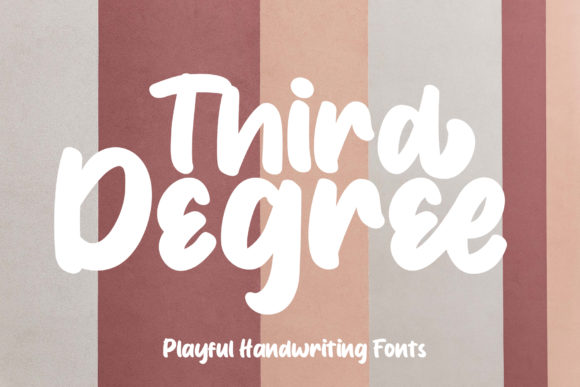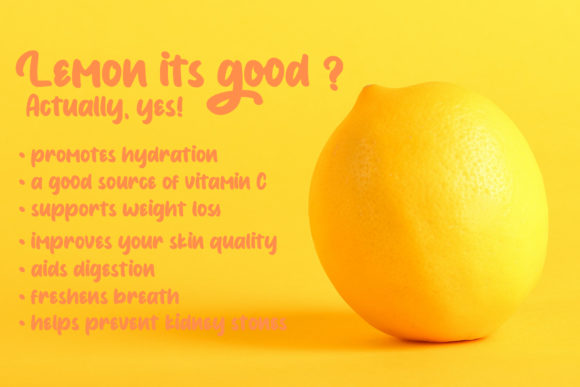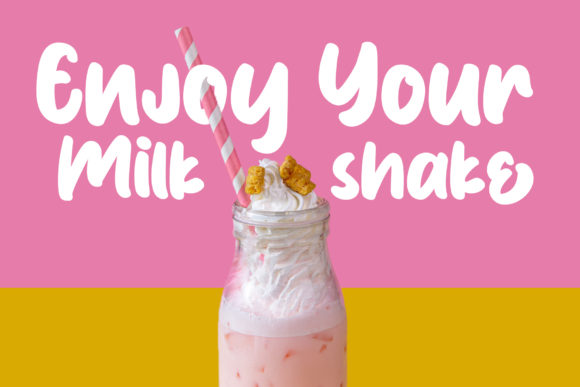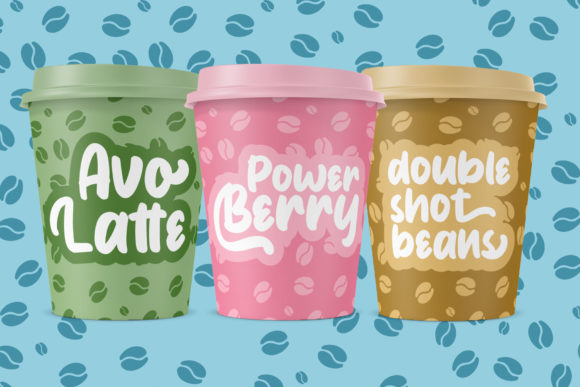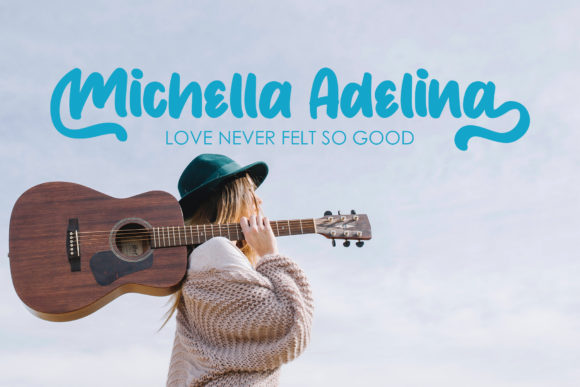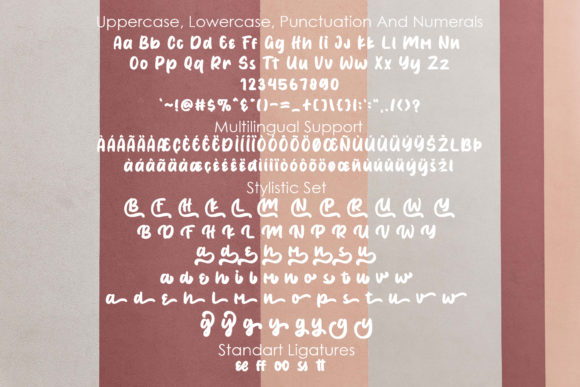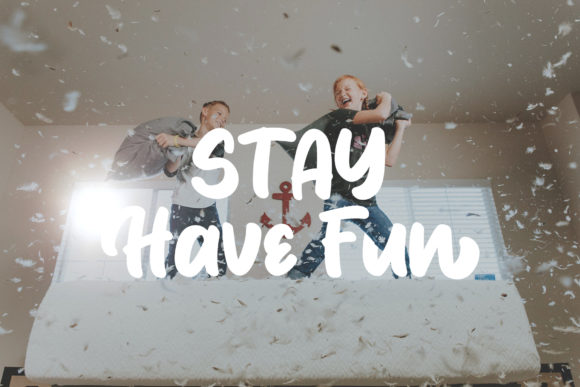
Third Degree Font
About Third Degree Font
Third Degree sounds like an elegant and timeless handwritten font, perfect for adding a touch of sophistication and flair to a variety of design projects. With its flowing and distinct style, Third Degree offers a plethora of creative possibilities. Here are some ideas on how to utilize Third Degree to create stunning and captivating designs:
1. Wedding Invitations: Use Third Degree to craft elegant and romantic wedding invitations that set the tone for a beautiful celebration of love.
2. Quotes and Typography Art: Create eye-catching typography art and quote graphics using Third Degree’s flowing and elegant touch, making inspirational messages stand out.
3. Greeting Cards: Design exquisite greeting cards for various occasions, such as birthdays, anniversaries, and special events, with Third Degree’s timeless charm.
4. Branding and Logos: Incorporate Third Degree into branding materials, such as logos, business cards, and letterheads, to add a touch of sophistication and personalization.
5. Book Covers: Use Third Degree to create captivating book covers for novels, poetry collections, and other literary works, enticing readers with its elegant appeal.
6. Fashion and Beauty Brands: Infuse fashion and beauty branding with Third Degree’s elegant flair, appealing to style-conscious audiences.
7. Calligraphy Art: Showcase the beauty of calligraphy art by using Third Degree in hand-lettered quotes, place cards, and art prints.
8. High-End Menus: Design elegant menus for upscale restaurants and fine dining establishments, capturing the essence of luxury with Third Degree’s sophisticated style.
9. Luxury Packaging: Add an air of elegance to luxury product packaging, such as perfumes, cosmetics, and high-end gift sets, using Third Degree’s flowing script.
10. Artistic Event Posters: Create visually striking event posters for art exhibitions, cultural events, and performances, infusing them with the graceful strokes of Third Degree.
11. Magazine Covers and Editorial Design: Use Third Degree to design magazine covers and editorial layouts, giving them a touch of artistic sophistication.
12. Invitation Suites: Craft comprehensive invitation suites for events like galas, fundraisers, and corporate gatherings, incorporating Third Degree in RSVP cards, envelopes, and more.
13. Wine Labels: Design exquisite wine labels with Third Degree’s elegant script, elevating the perceived quality and appeal of the product.
14. Interior Decor: Use Third Degree to create custom calligraphy pieces for home decor, bringing a sense of elegance and refinement to living spaces.
15. Personal Journals and Planners: Design stylish and personalized journals and planners with Third Degree’s flowing and elegant handwriting.
16. Floral and Nature-Themed Designs: Infuse floral and nature-themed designs with the grace of Third Degree’s flowing script, capturing the beauty of the natural world.
17. Inspirational Packaging Quotes: Add inspiring quotes to product packaging using Third Degree, connecting with customers on a deeper level.
18. Certificate Designs: Create sophisticated certificate designs for academic achievements, awards, and recognition, using Third Degree’s elegant lettering.
19. Stationery Sets: Craft elegant stationery sets featuring Third Degree, offering a refined and polished way to correspond with others.
20. Artistic Murals and Wall Decor: Transform walls into stunning pieces of art with Third Degree’s graceful script, creating captivating murals and wall decor.
In summary, Third Degree is a flowing handwritten font that exudes elegance and sophistication. Whether you’re designing wedding invitations, logos, book covers, or event posters, Third Degree’s timeless style will add a touch of refinement and beauty to your projects. Embrace the distinct and flowing nature of Third Degree and allow it to elevate your designs to new heights, leaving a lasting impression on your audience.